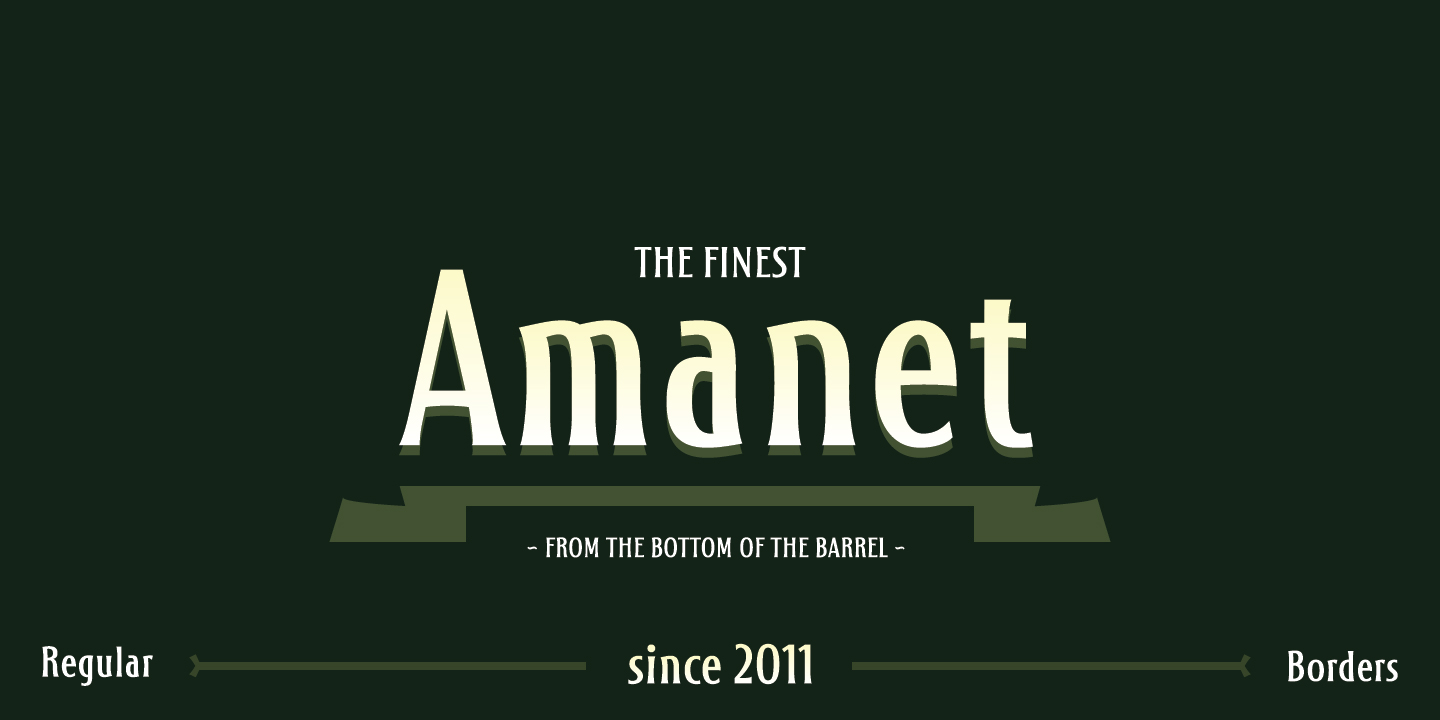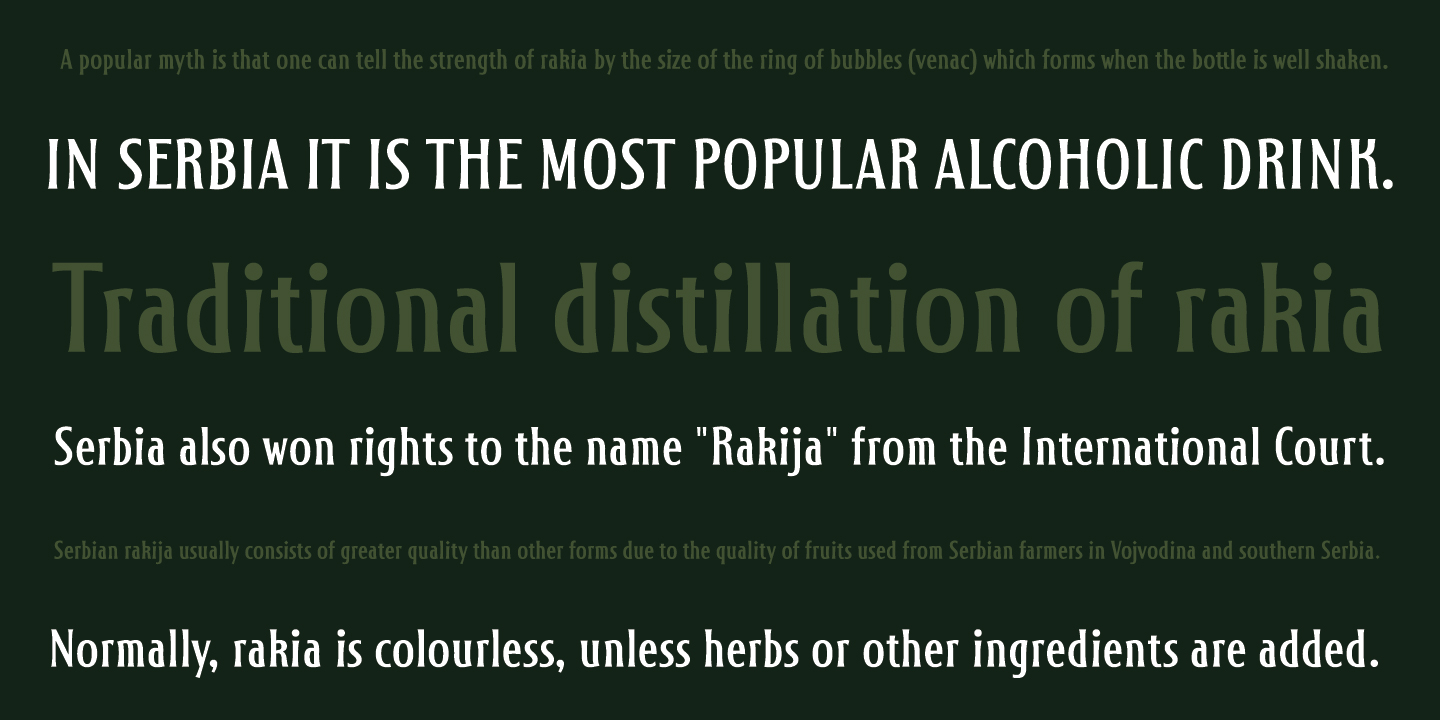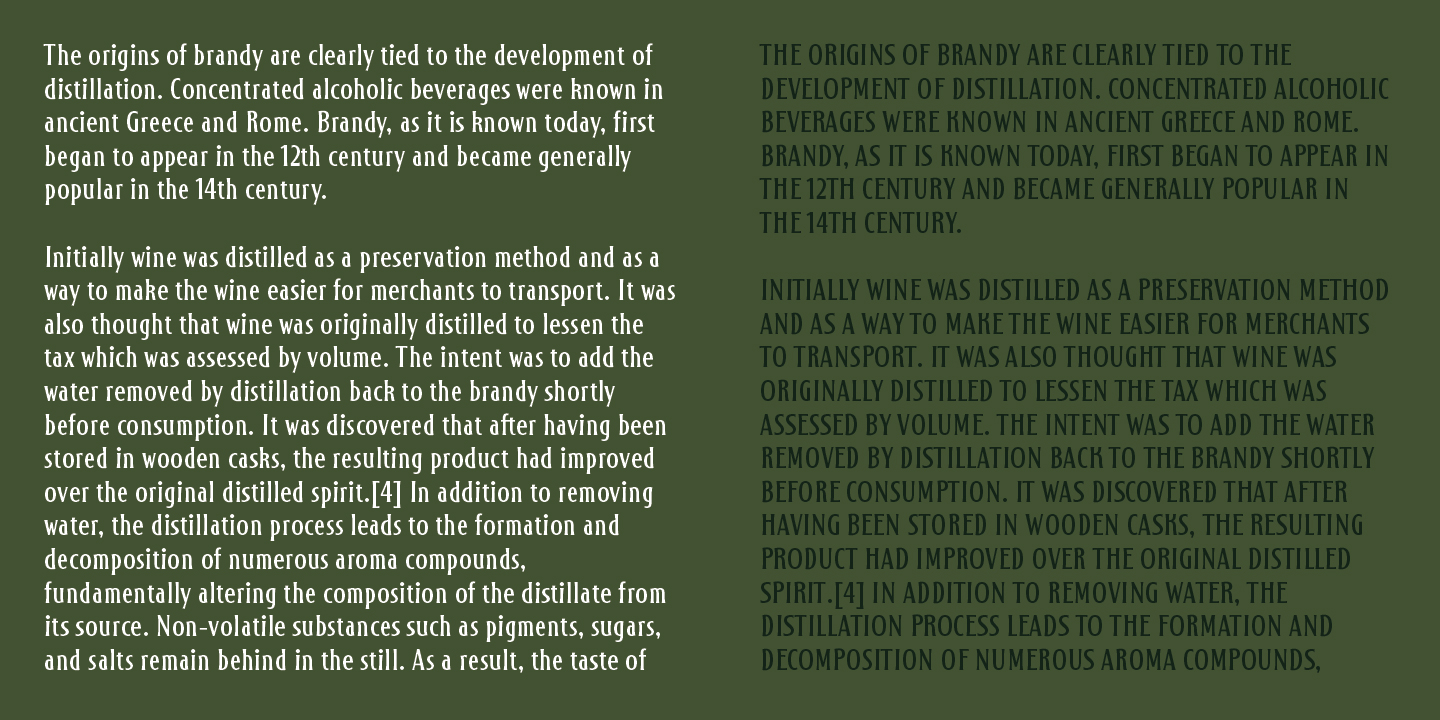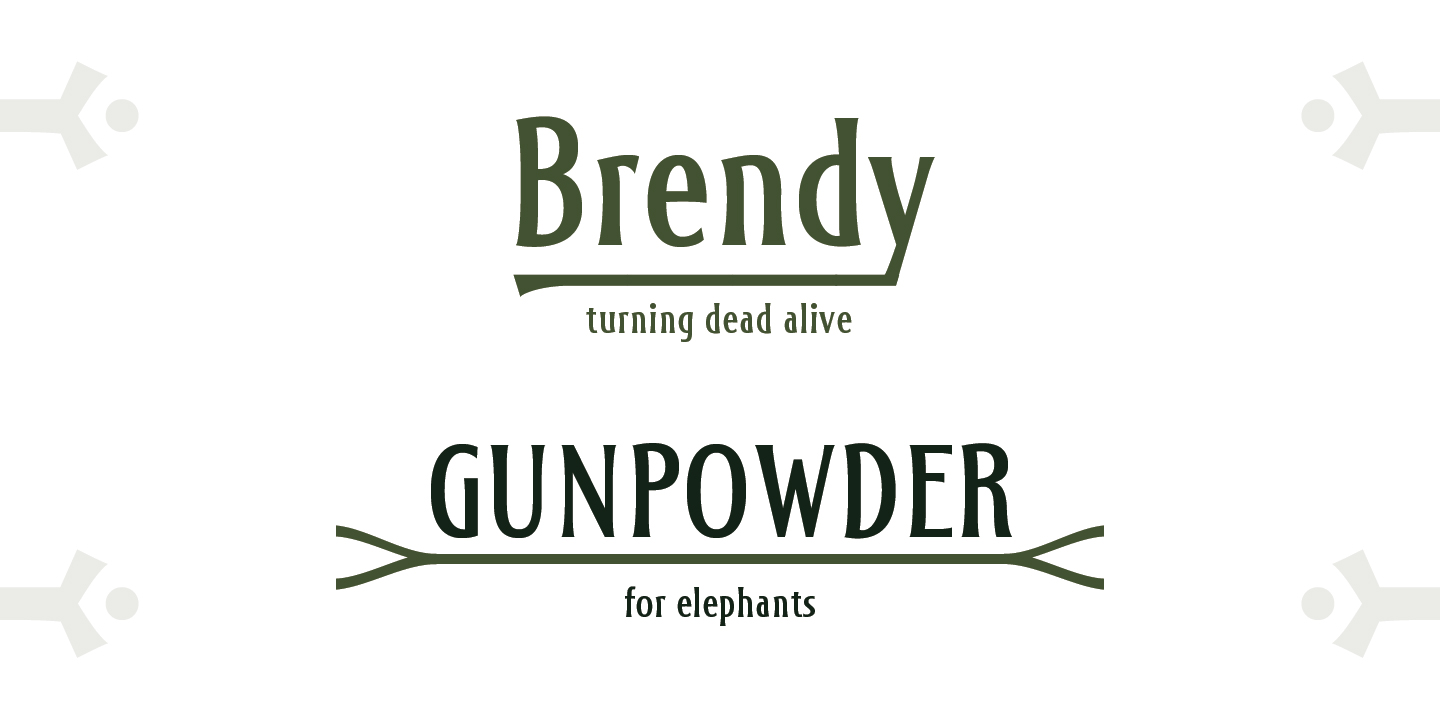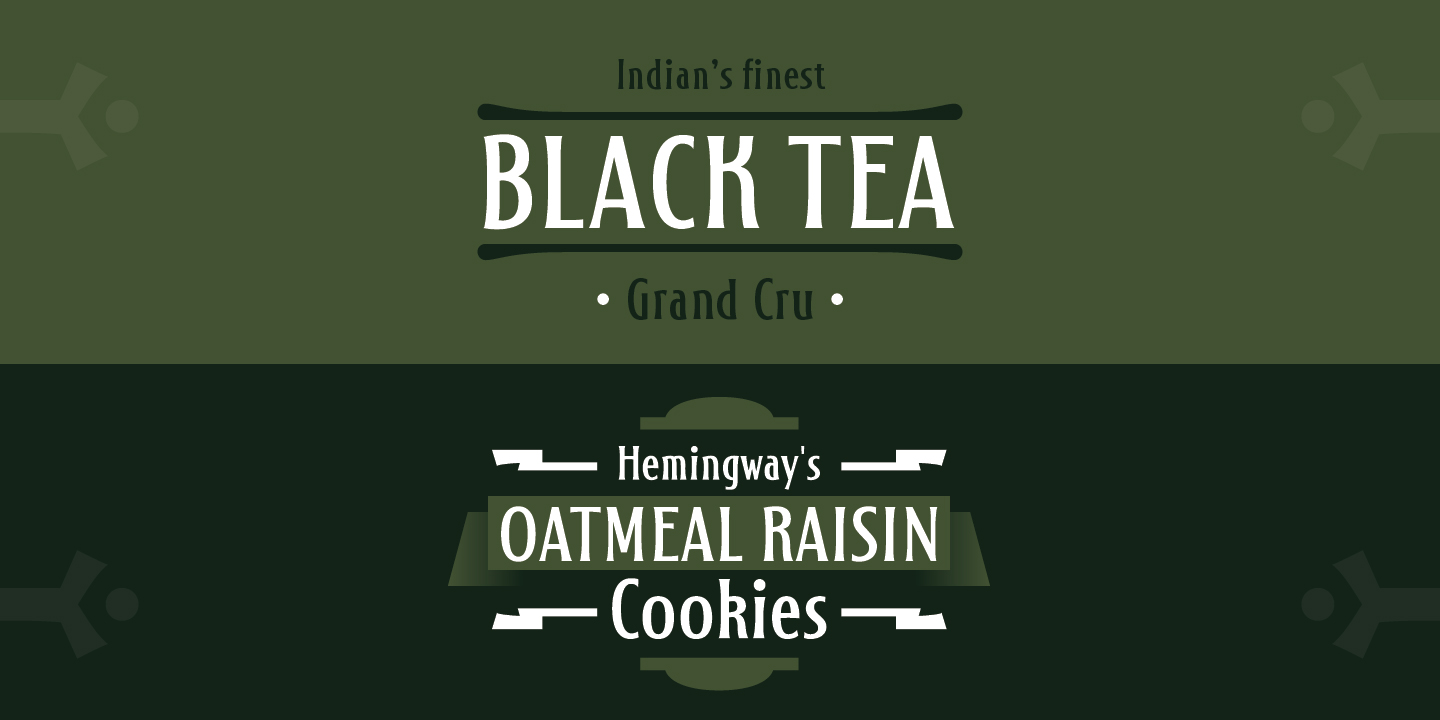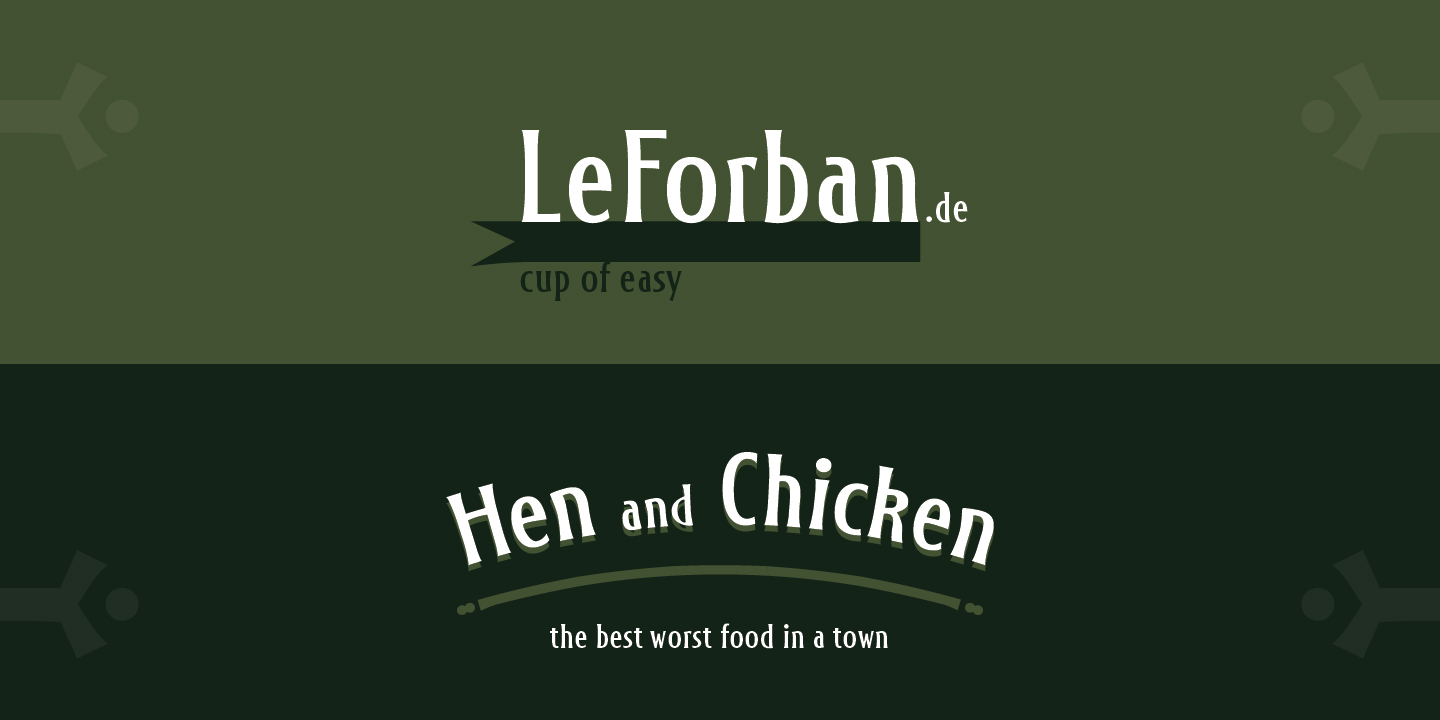
Amanet is original old fashion typeface that comes as Regular weight followed with stylistic compatibile Borders. It's pretty readable in small sizes which recommends it for use on packages, labels or specific corporate identities. "Amanet" is an archaic Serbian word for English word "legacy".